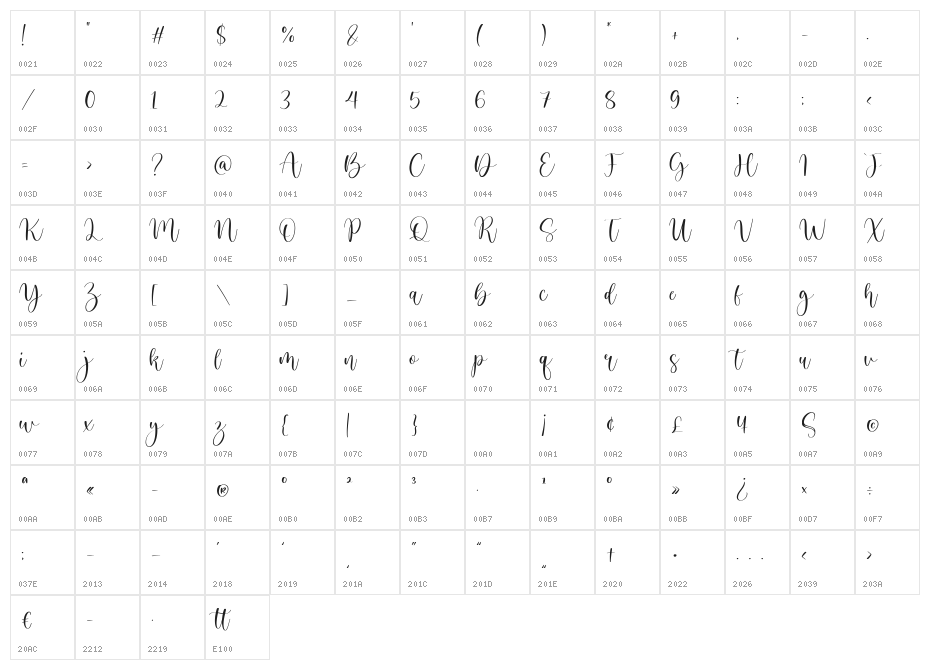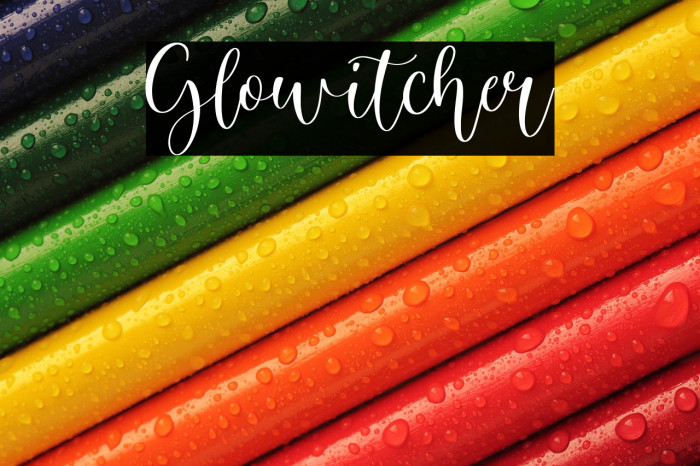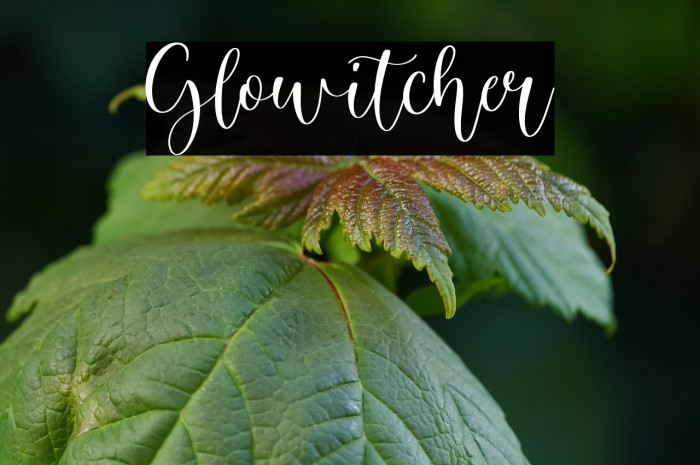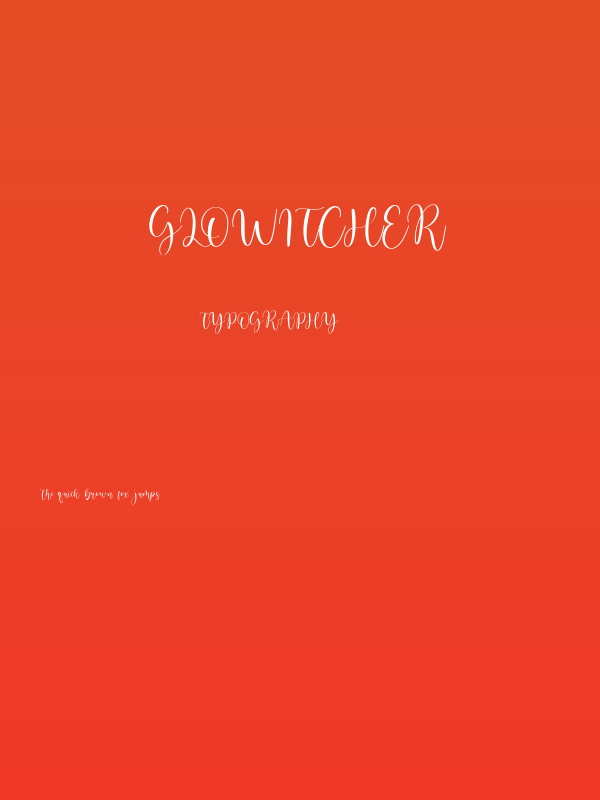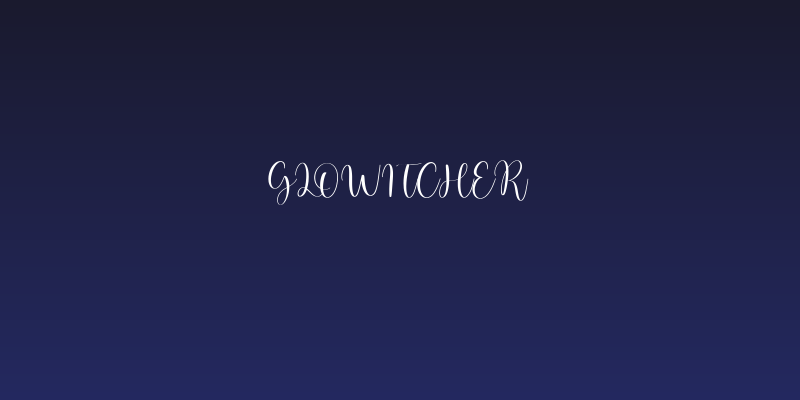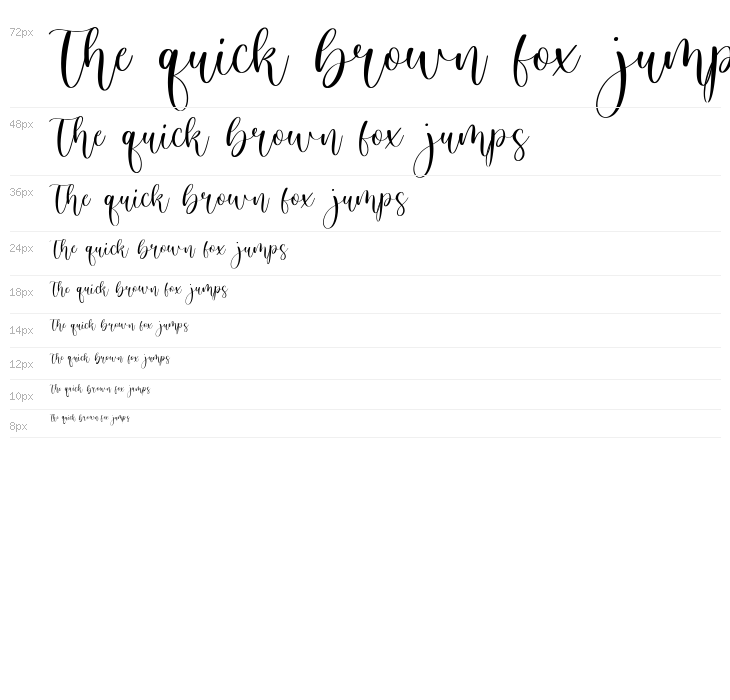
Glowitcher Font
Glowitcher Description
This font features an elegant and flowing script style, characterized by its fluid, cursive letterforms and graceful loops. The strokes are smooth and connected, giving it a handwritten appearance that is both sophisticated and approachable. The uppercase letters are ornate with sweeping curves, while the lowercase letters maintain a consistent flow, enhancing readability. The numerals and special characters are designed to complement the overall script style, maintaining the same fluidity and elegance. This font is ideal for projects that require a personal touch, such as invitations, greeting cards, and branding materials.
| Overall Style | Elegant, Handwritten |
| Use Case | Headlines, Invitations, Greeting Cards |
| Proposed Projects | Ideal for wedding invitations, greeting cards, personal branding, and elegant packaging designs. |